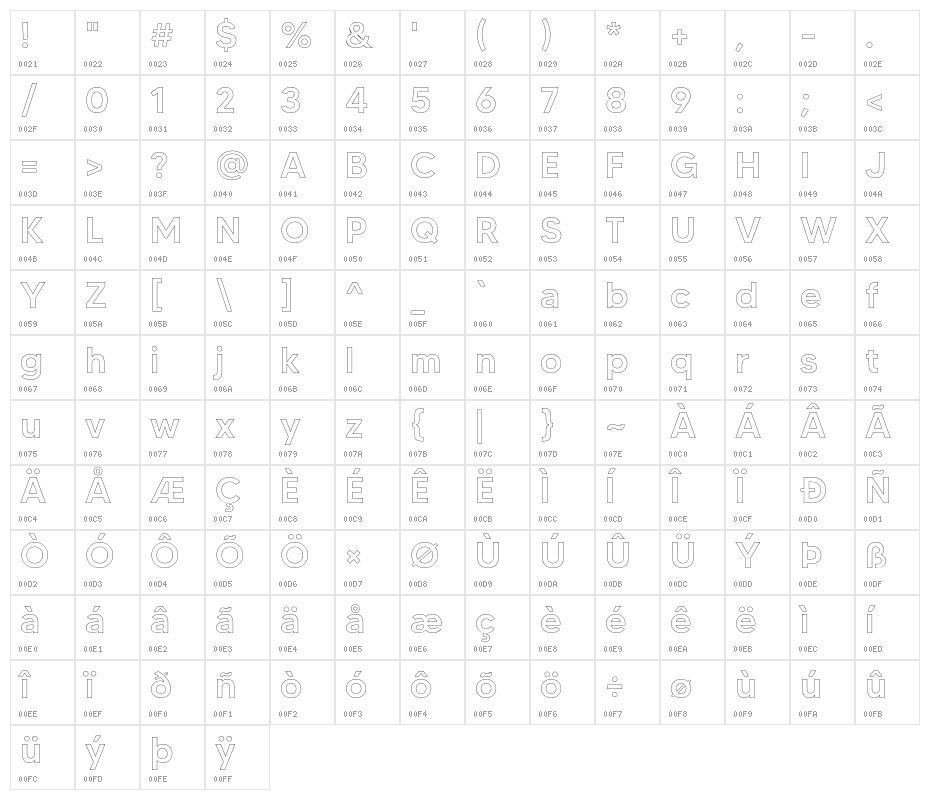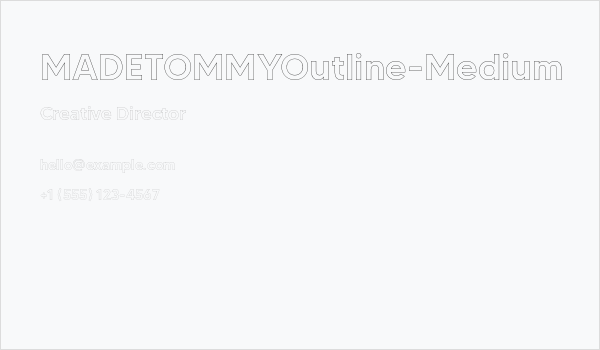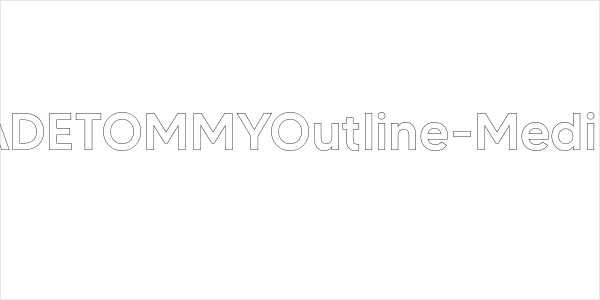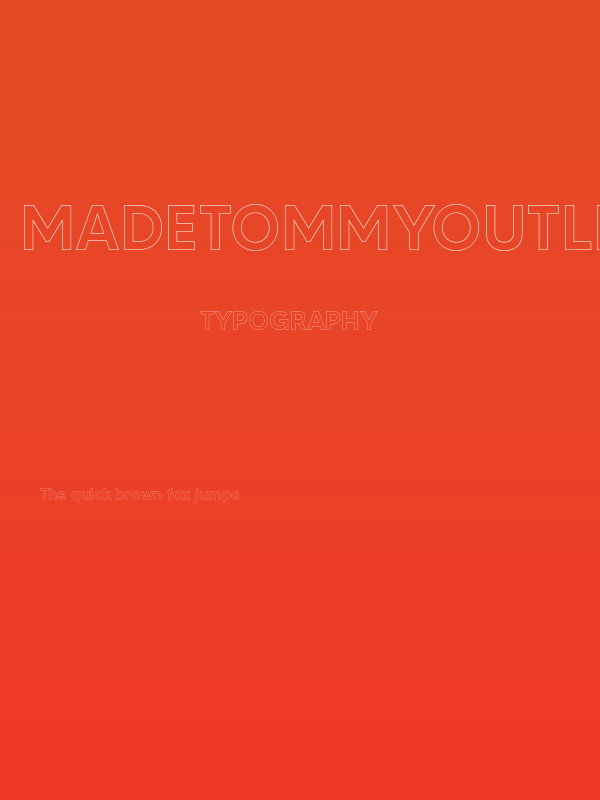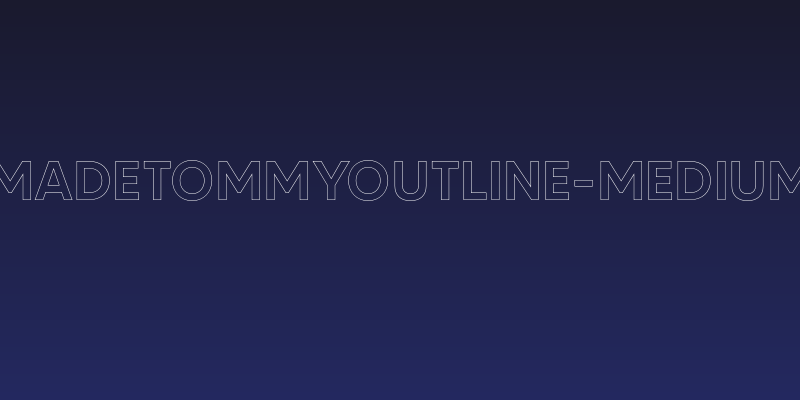
MADETOMMYOutline-Medium Font
MADETOMMYOutline-Medium Description
This font features a clean and modern outline style, characterized by its geometric and uniform letterforms. The uppercase and lowercase letters maintain a consistent width, creating a harmonious and balanced appearance. The numerals are equally well-proportioned, ensuring readability and visual appeal. Special characters are included, offering versatility for various design needs. The font's outline nature gives it a unique aesthetic, making it suitable for projects that require a contemporary and stylish look.
| Proposed Projects | Ideal for branding, headlines, posters, and digital media where a modern and stylish appearance is desired. |